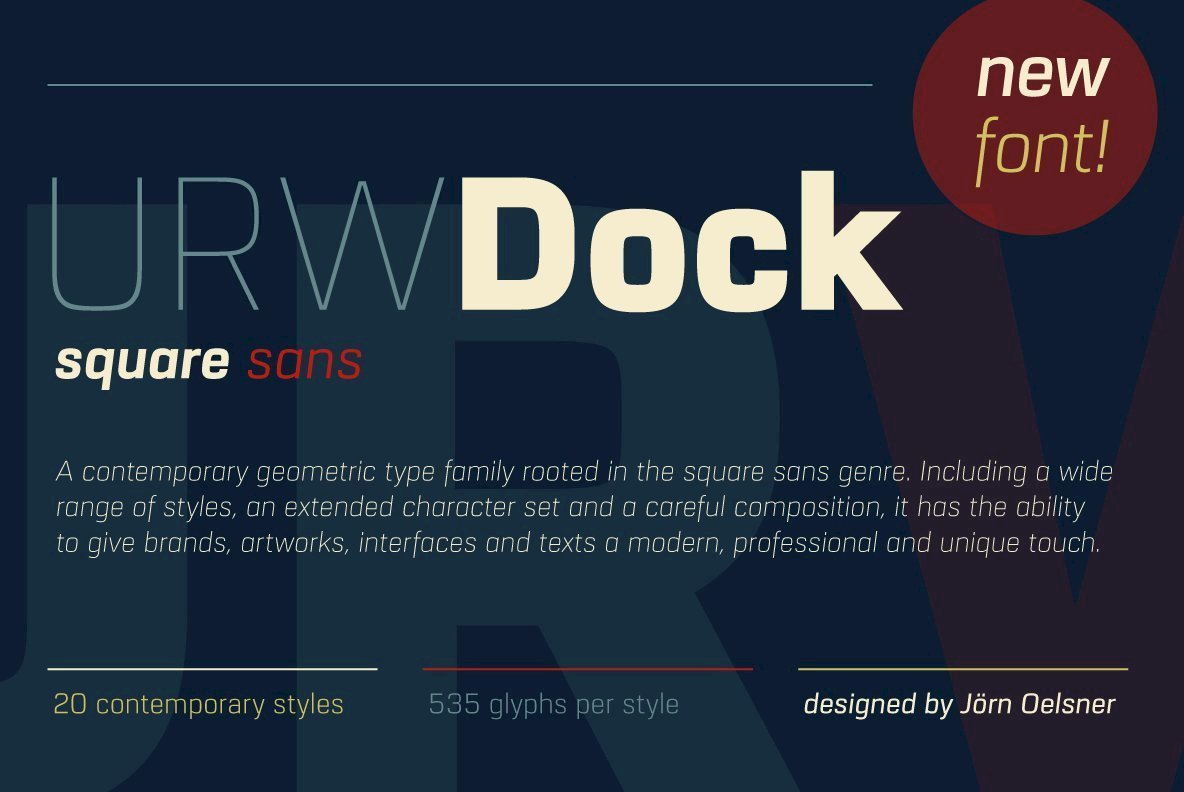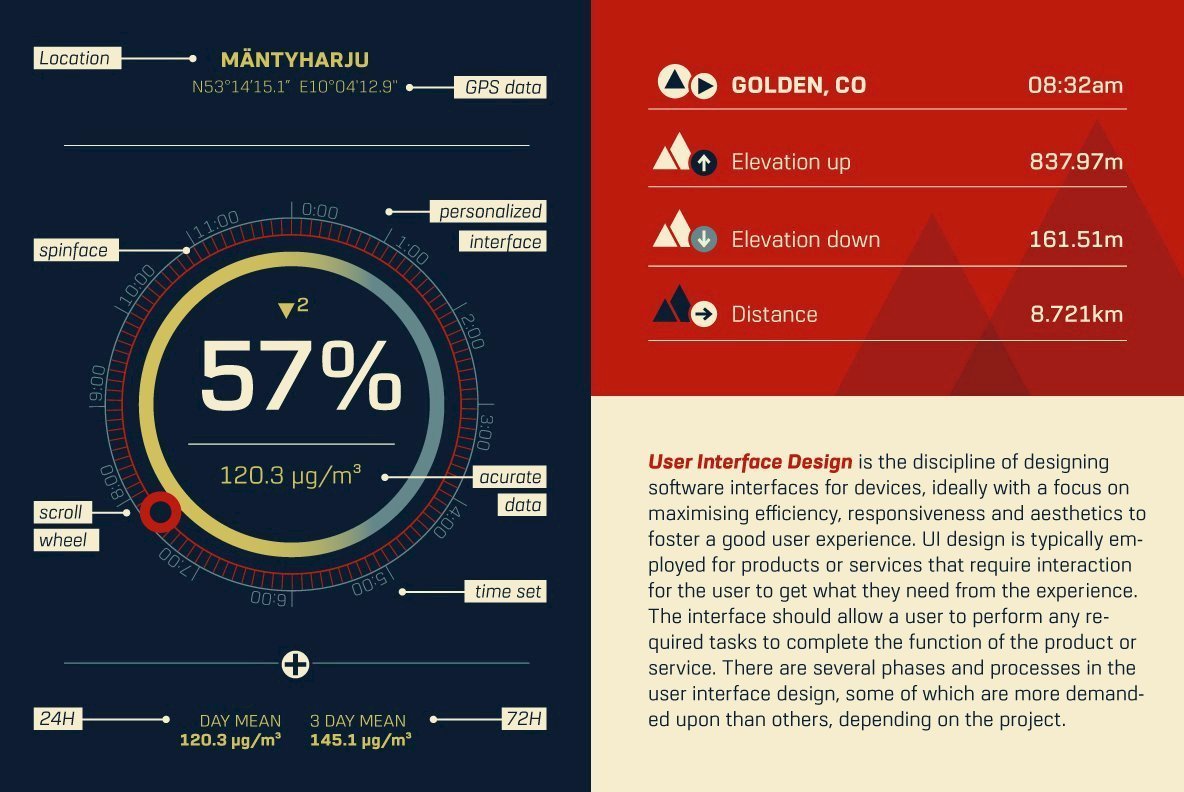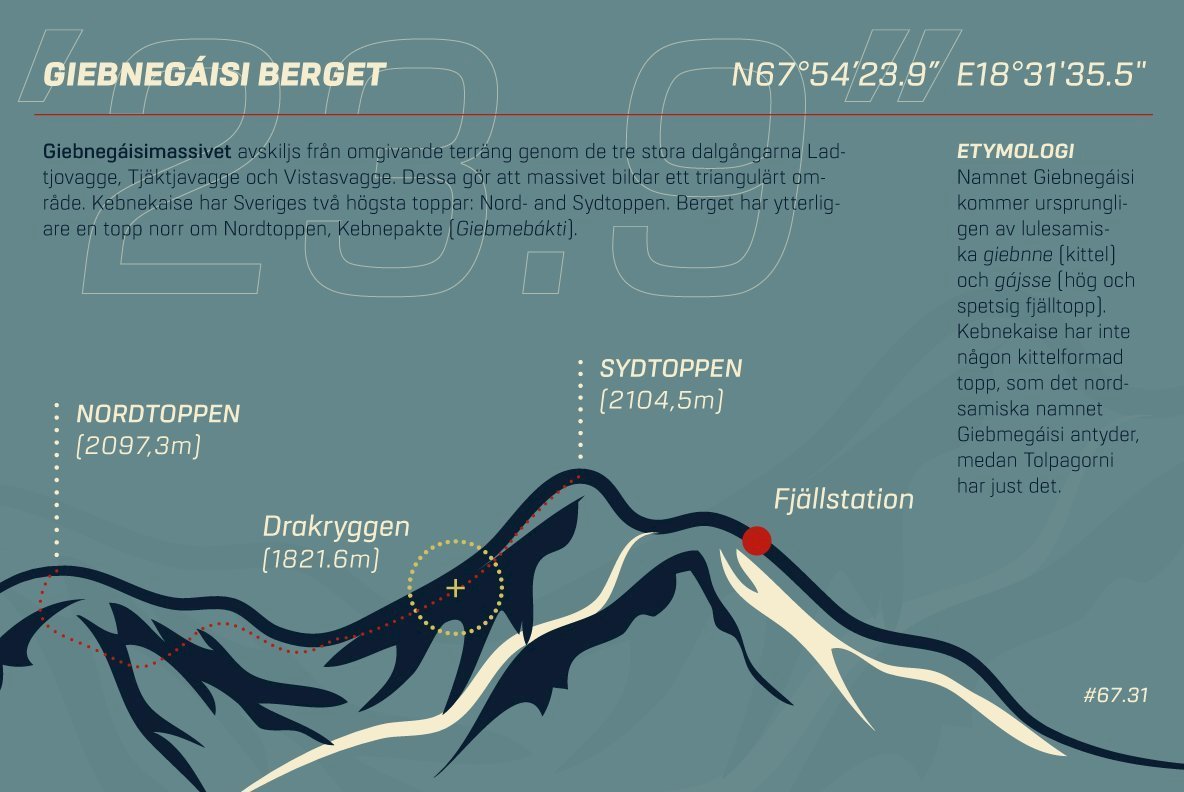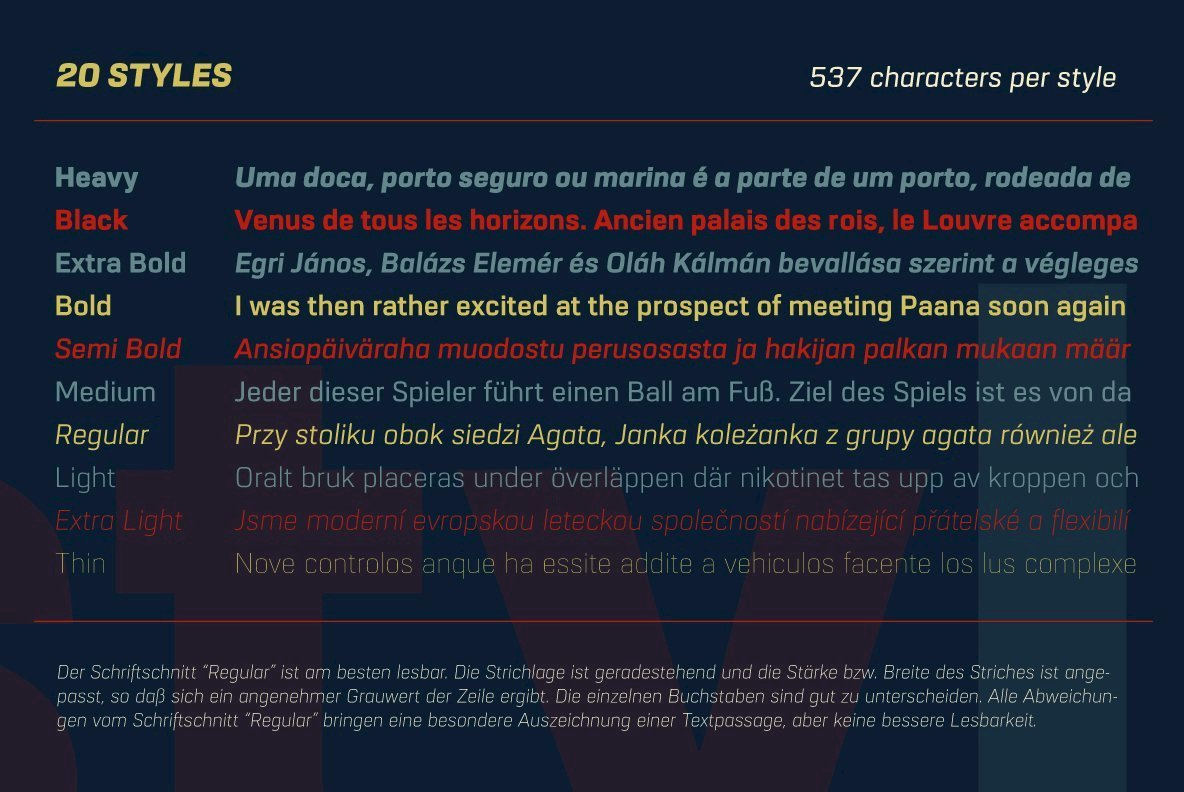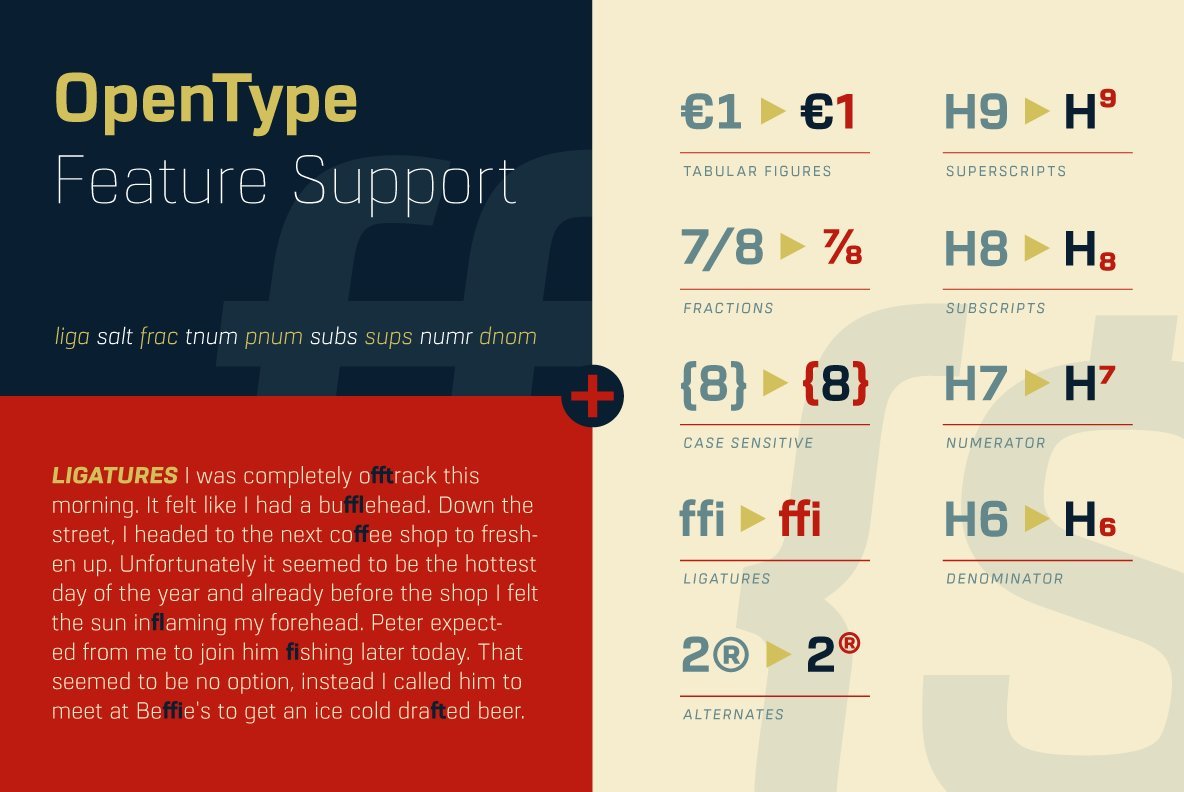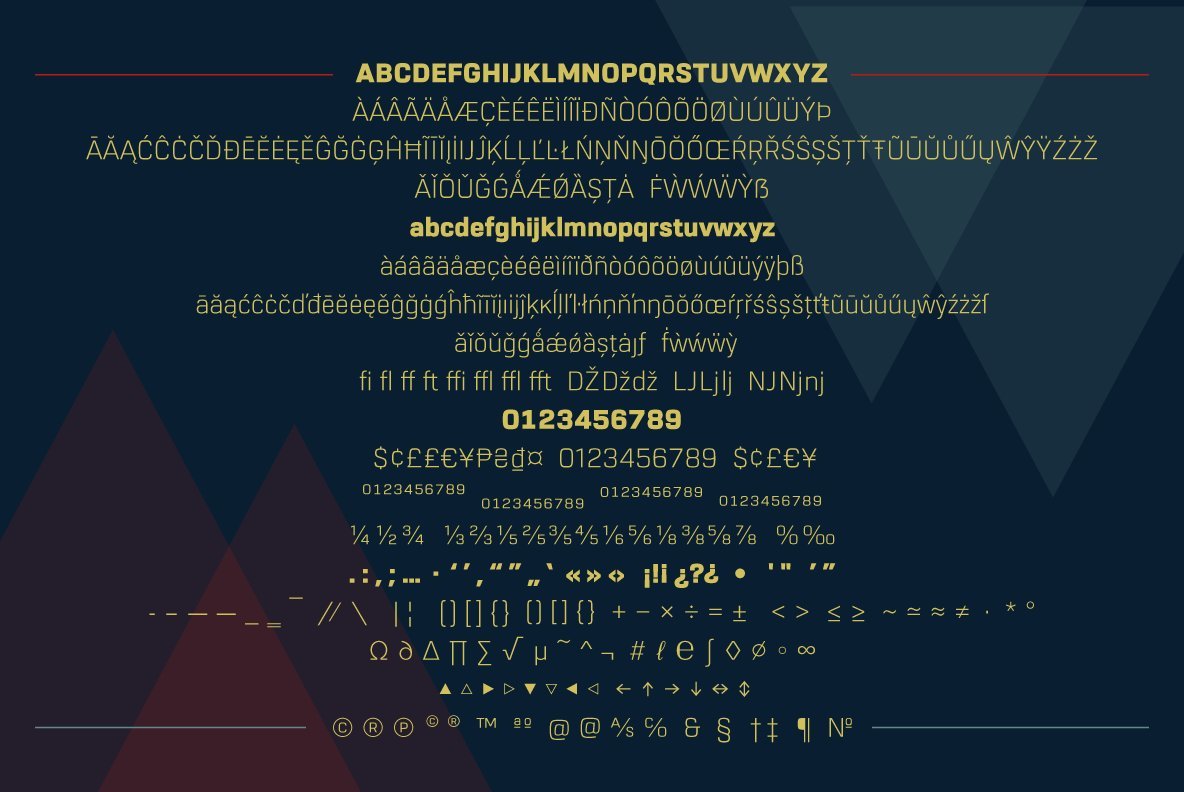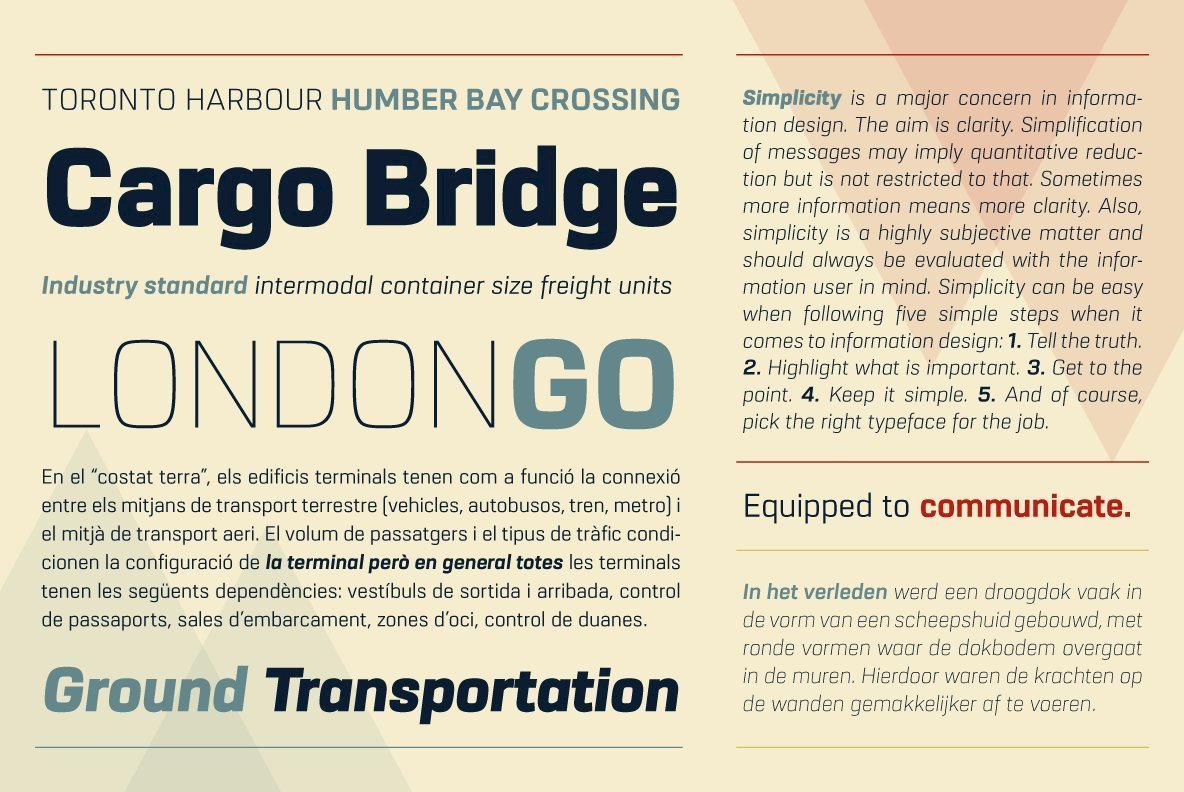
URW Dock Font Family
URW Dock is a contemporary geometric type family rooted in the square sans genre. Inspired by the square sans typefaces of the 60s, it is a reinterpretation and enhancement particularly designed for today’s requirements of a multipurpose font: to work excellent in print and screen environments.
Including a wide range of styles, an extended character set and a careful composition, it has the ability to give brands, artworks, and interfaces a modern, professional and unique touch. Its high legibility and clear informative and technological appearance are perfectly suitable for infographics, signage and way-finding systems.